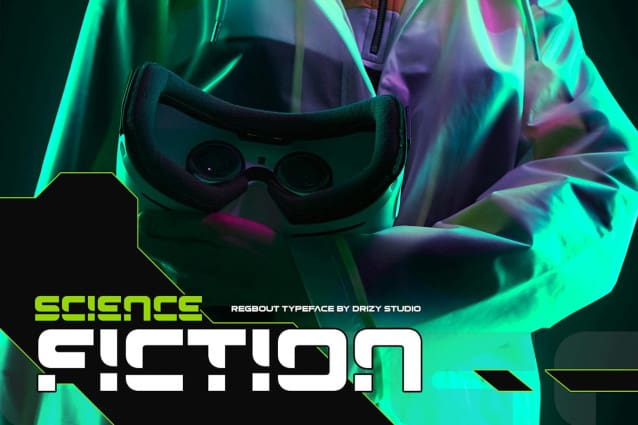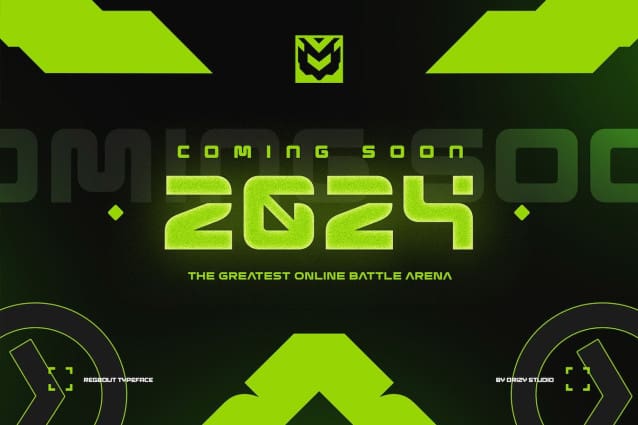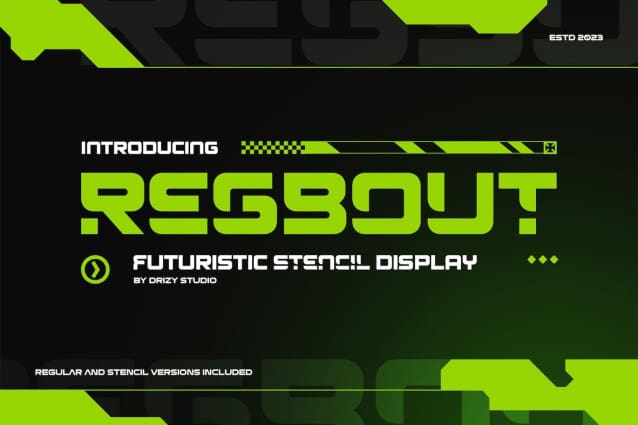
Regbout Futuristic Font
Regbout Futuristic Font – Futuristic Stencil Font is a cutting-edge typeface that effortlessly blends modern aesthetics with a touch of industrial design. This versatile font family is designed to make your projects stand out, giving them a futuristic, high-tech look that captures attention and leaves a lasting impression.
Regbout features: Character Set Variable: Regular & Stencil Punctuation & Numbers Multilingual Support